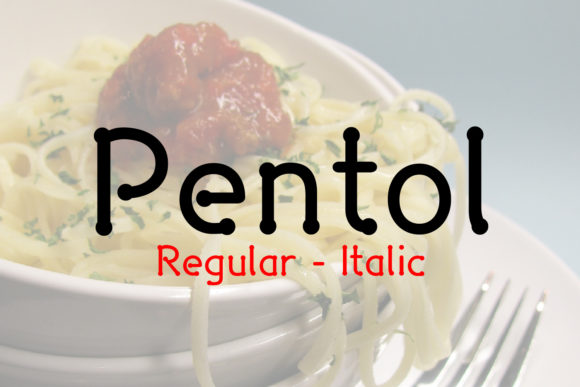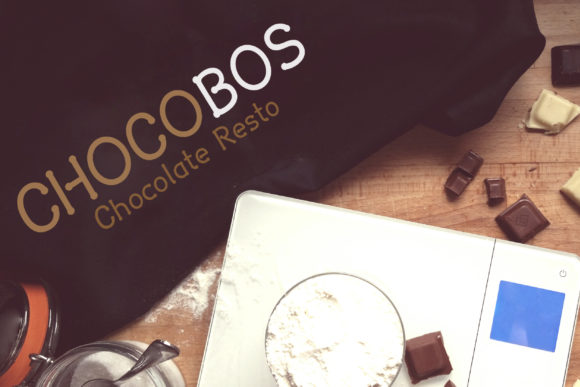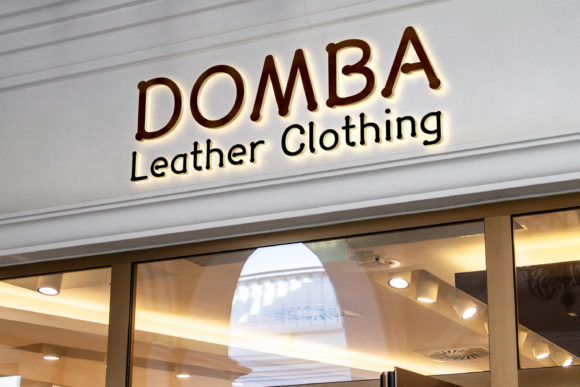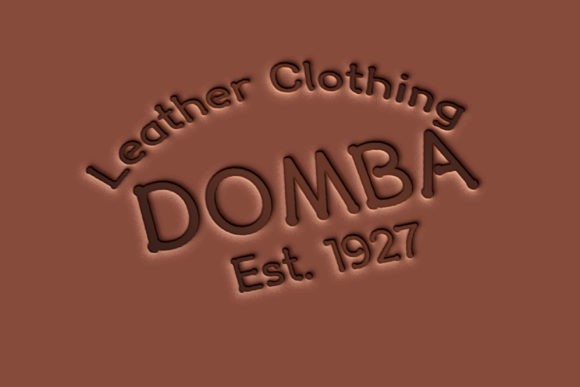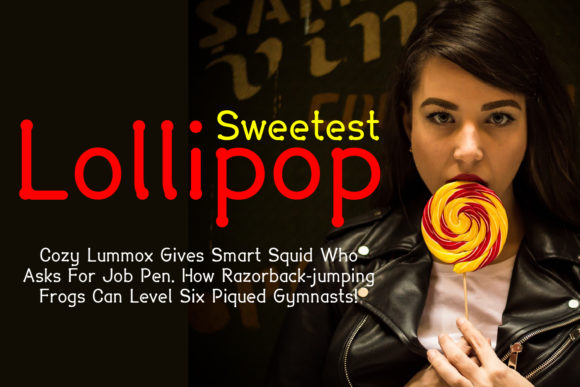
Introduction to Pentol Font
Pentol is a geometric and rounded sans serif font with a unique twist.
It will turn any creative project into an eye catcher .
Key Features of Pentol Font
Why Choose Pentol Font?
Pentol Font offers exceptional quality and versatility, making it a valuable addition to your design toolkit. Whether you’re creating for personal projects or commercial use, Pentol Font delivers professional results.